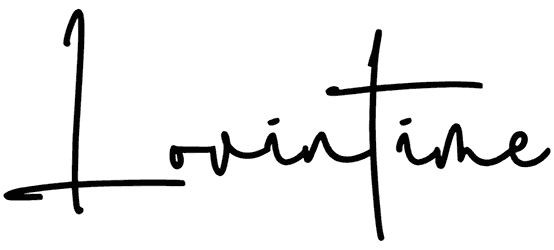
Afissta Font
With thin and curly lines, Afissta creates a delicate and delightful design that you’re gonna use for your content, no matter what the project is. It can be the cover of a romance book, a drama movie title, or a Valentine’s card.